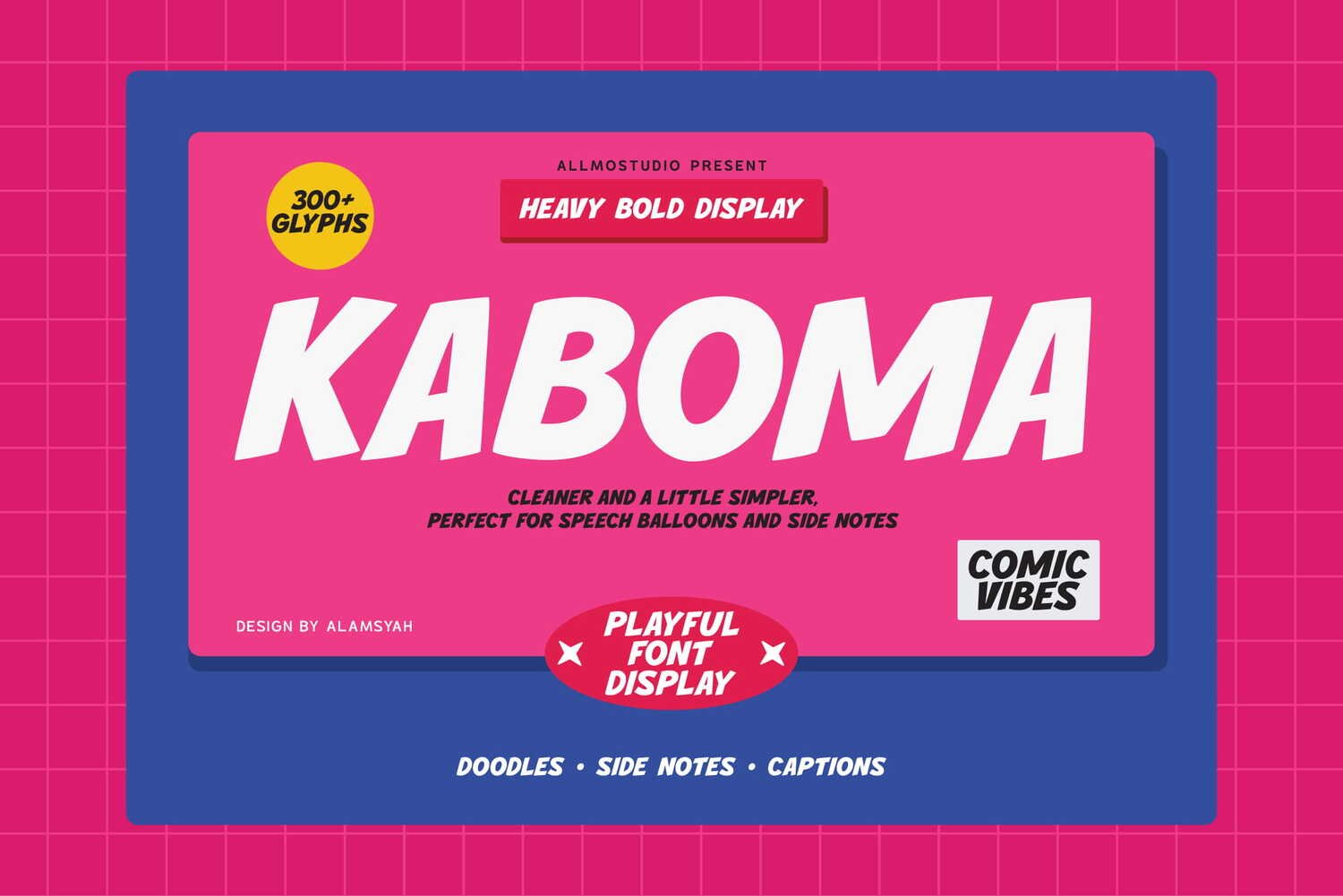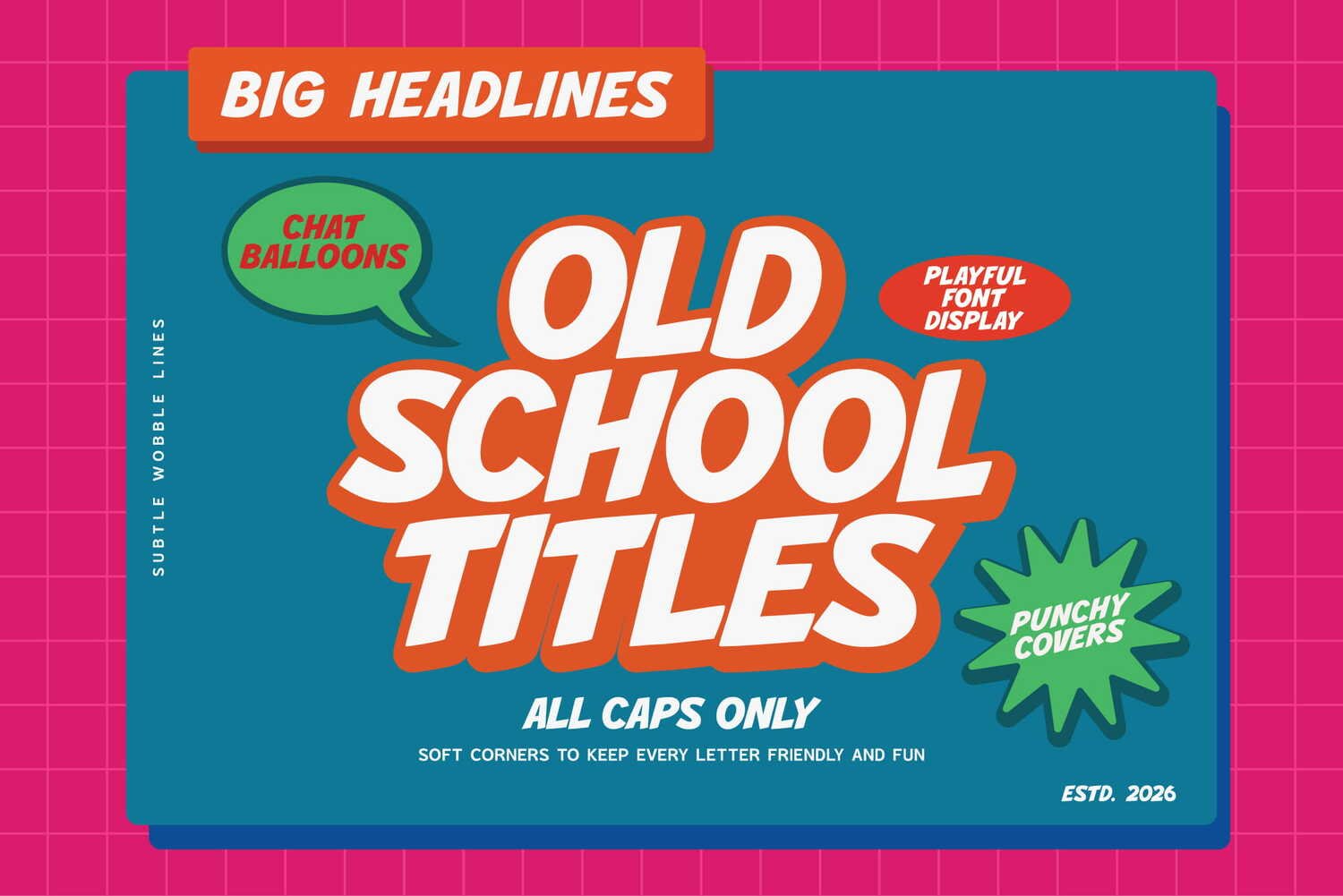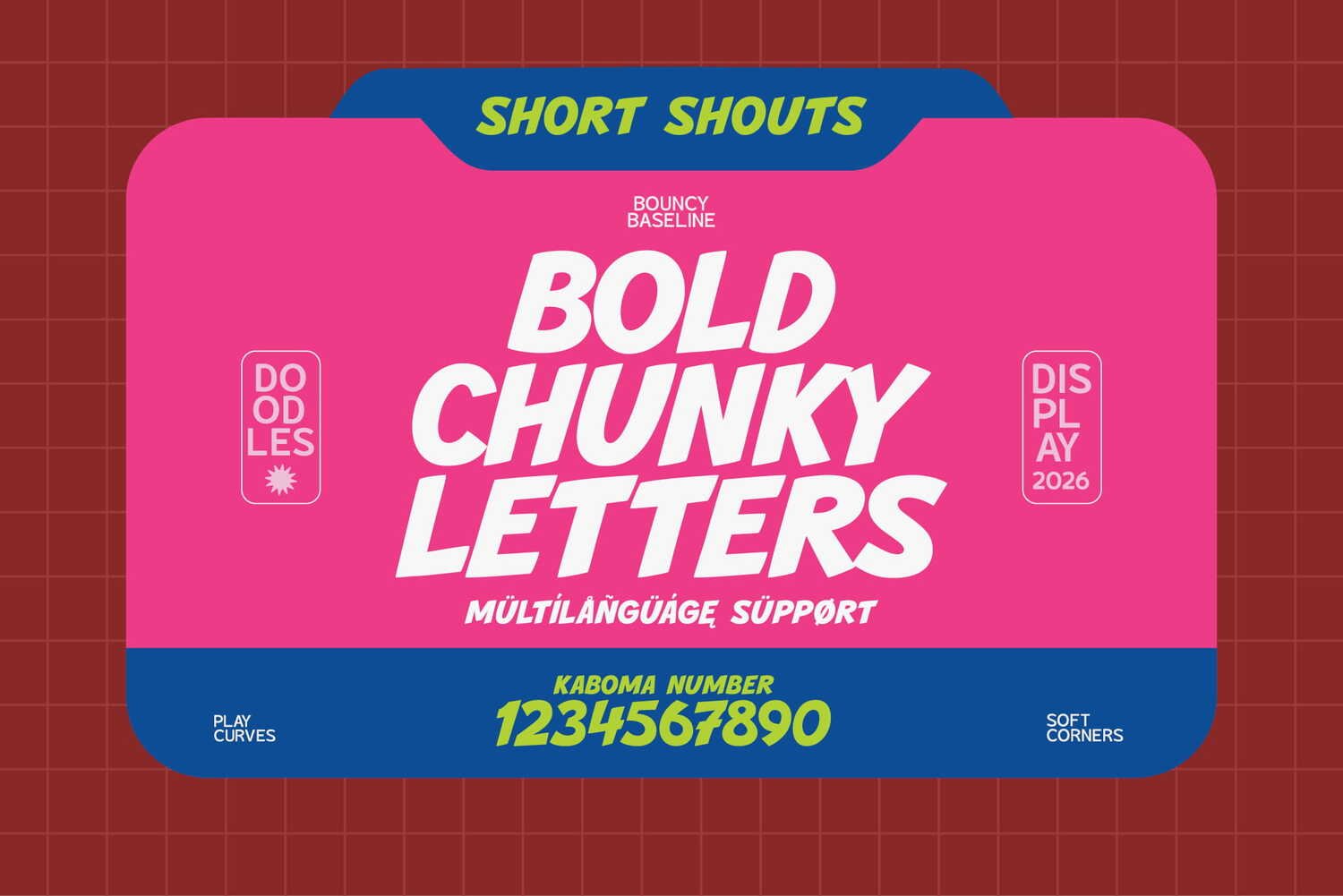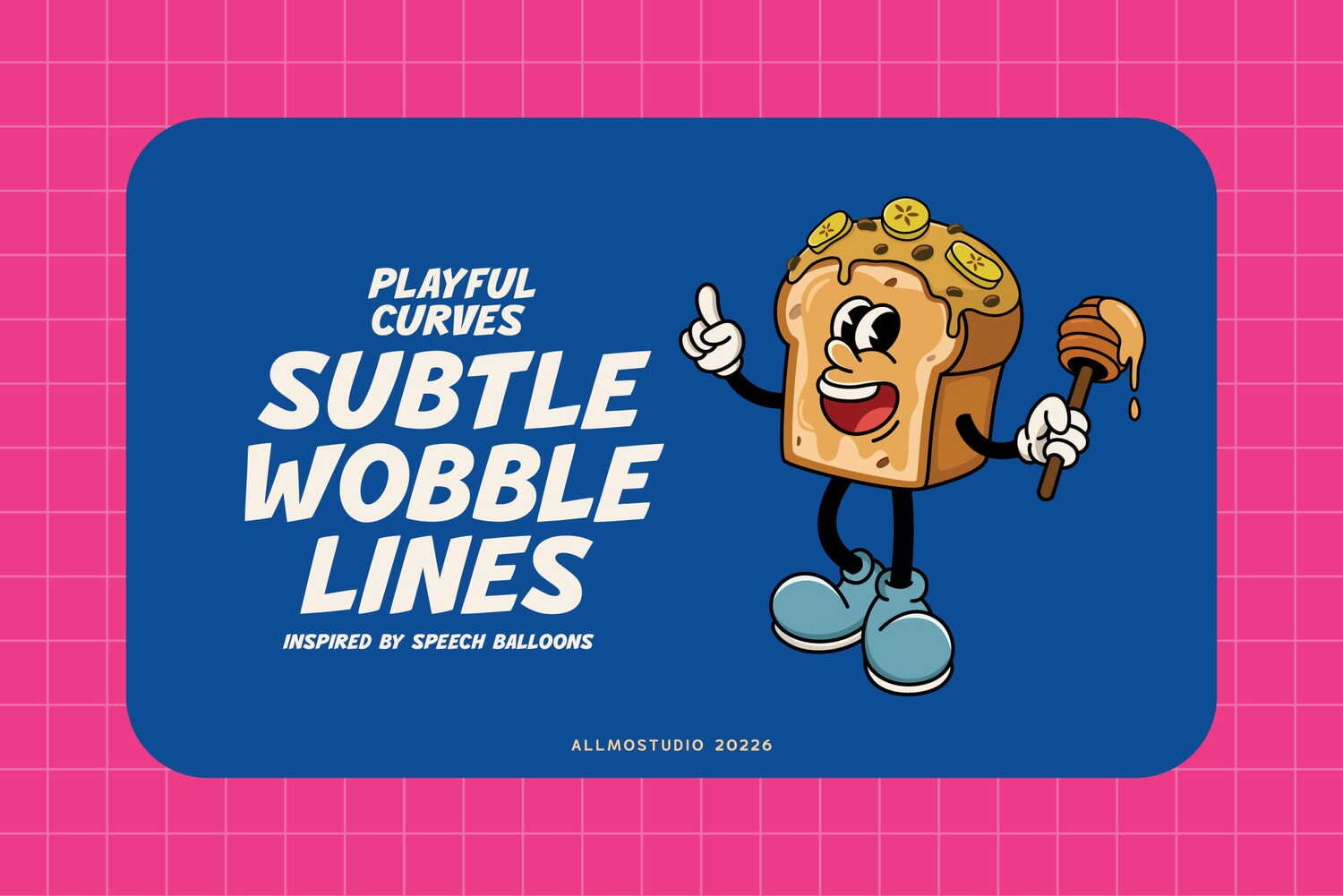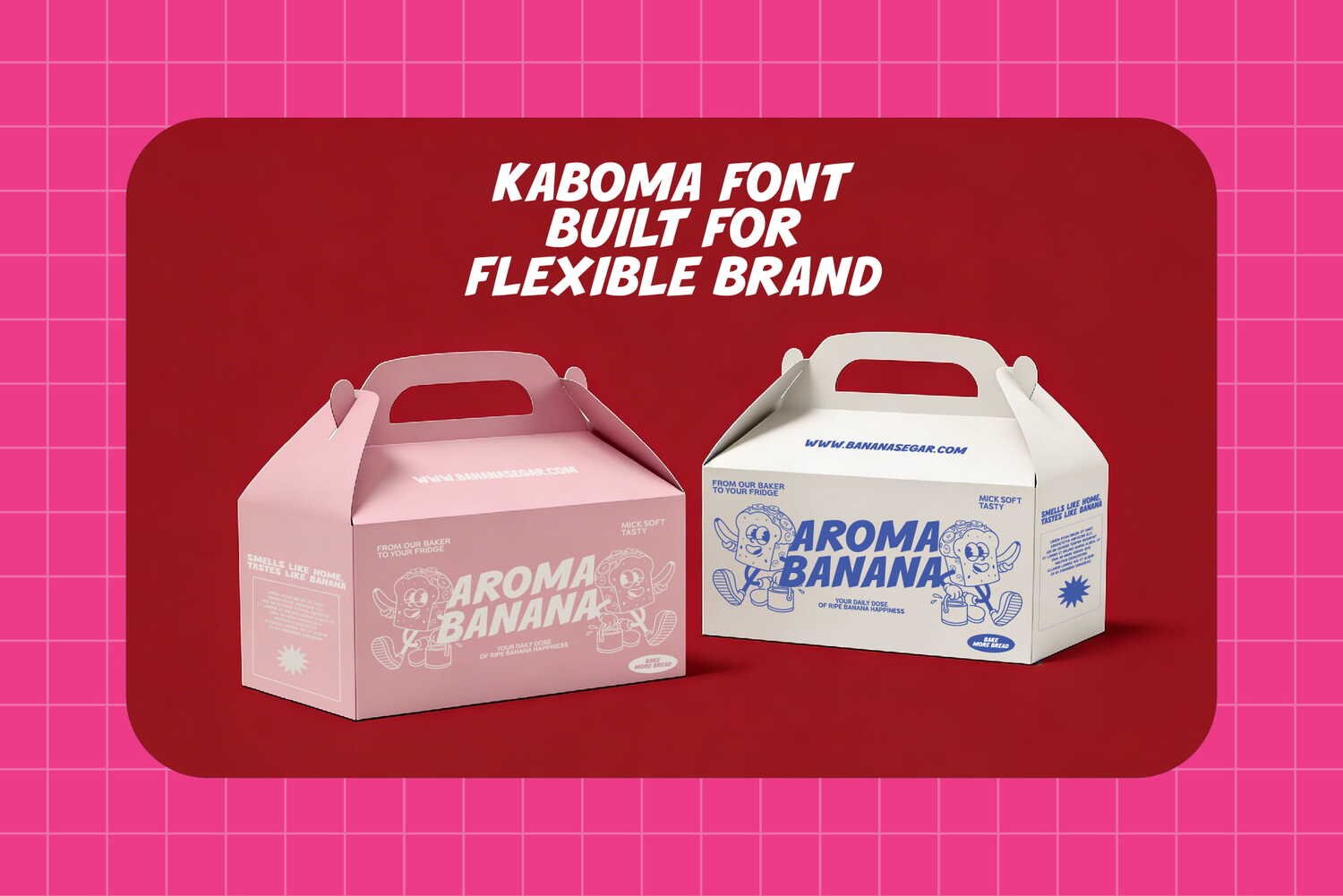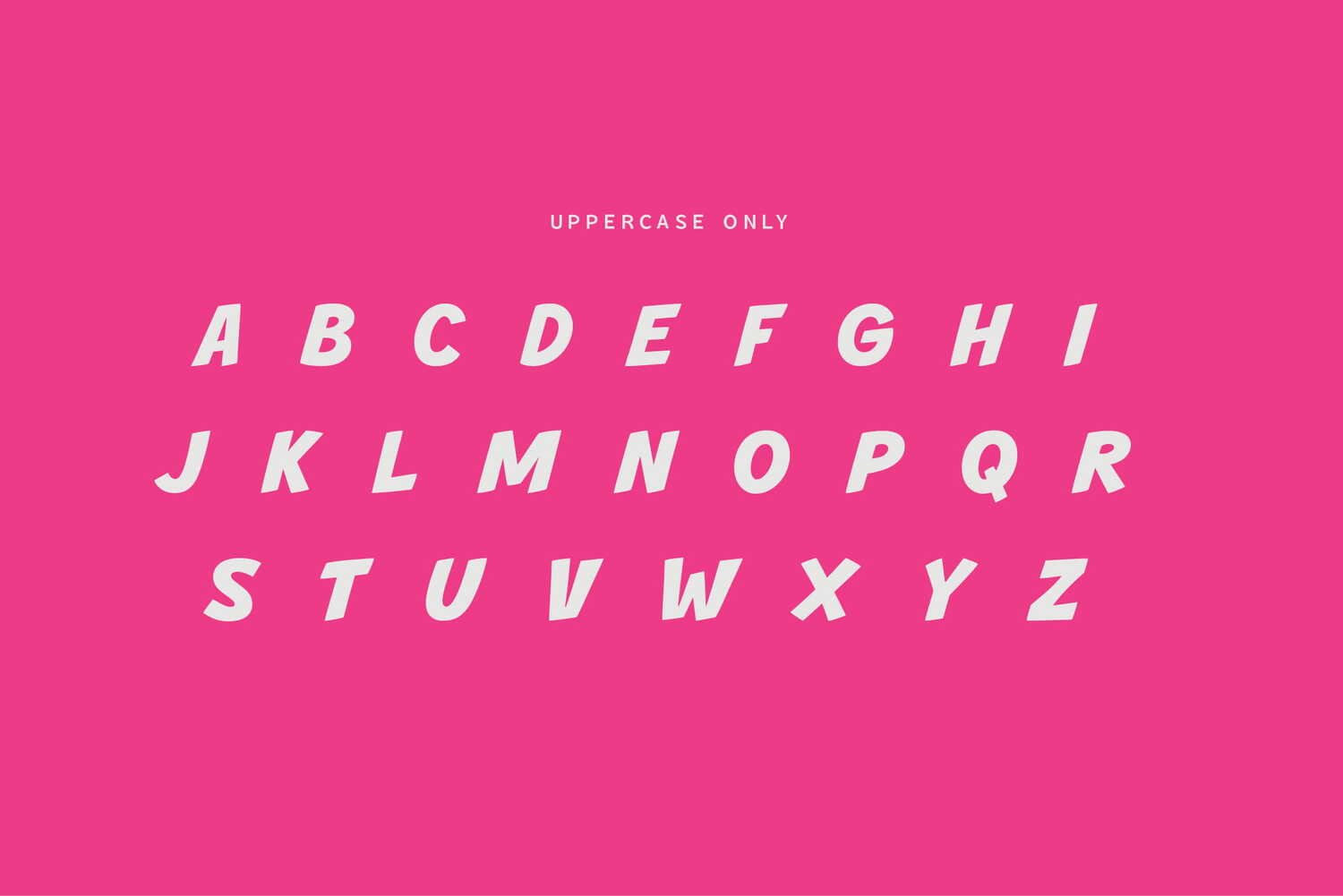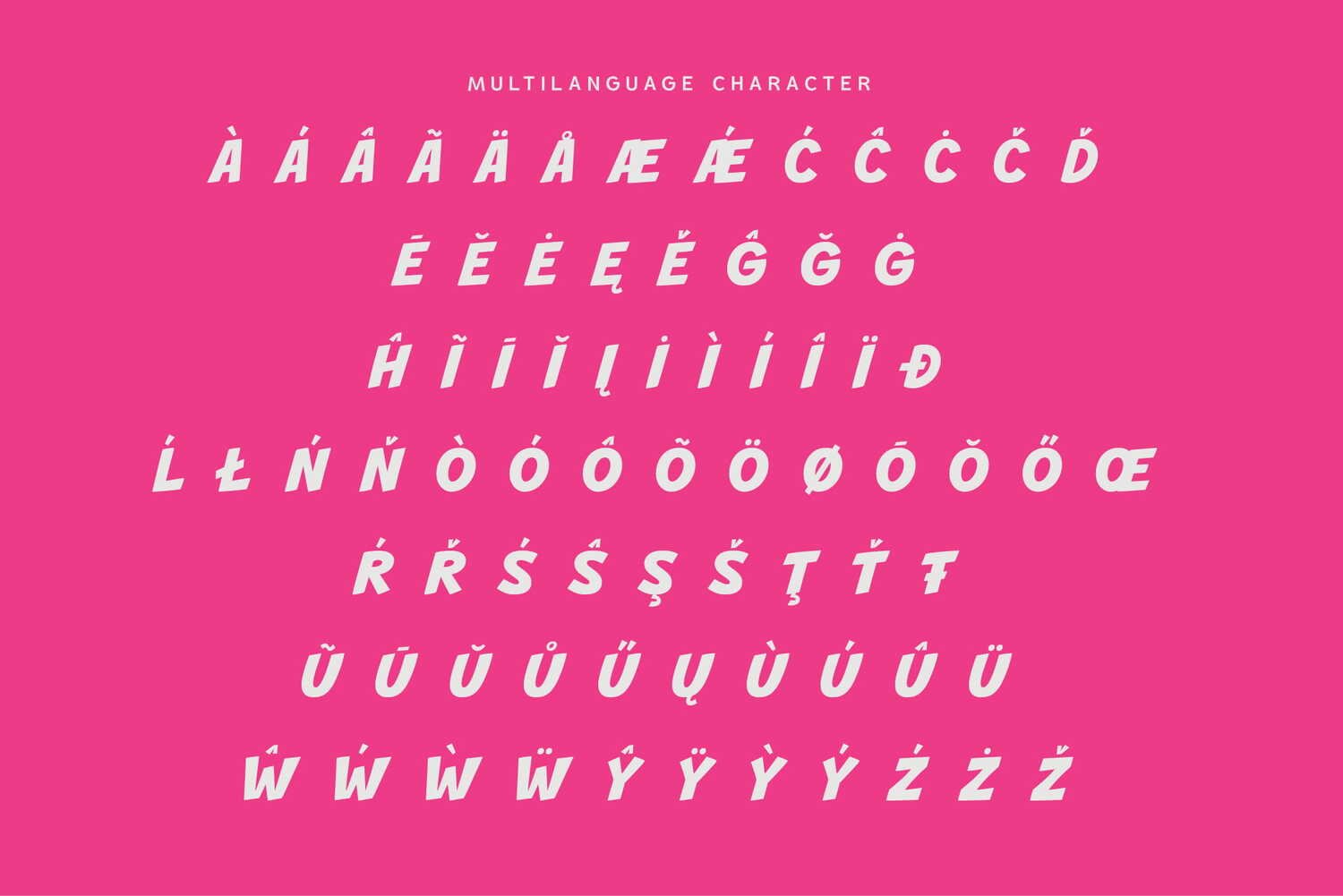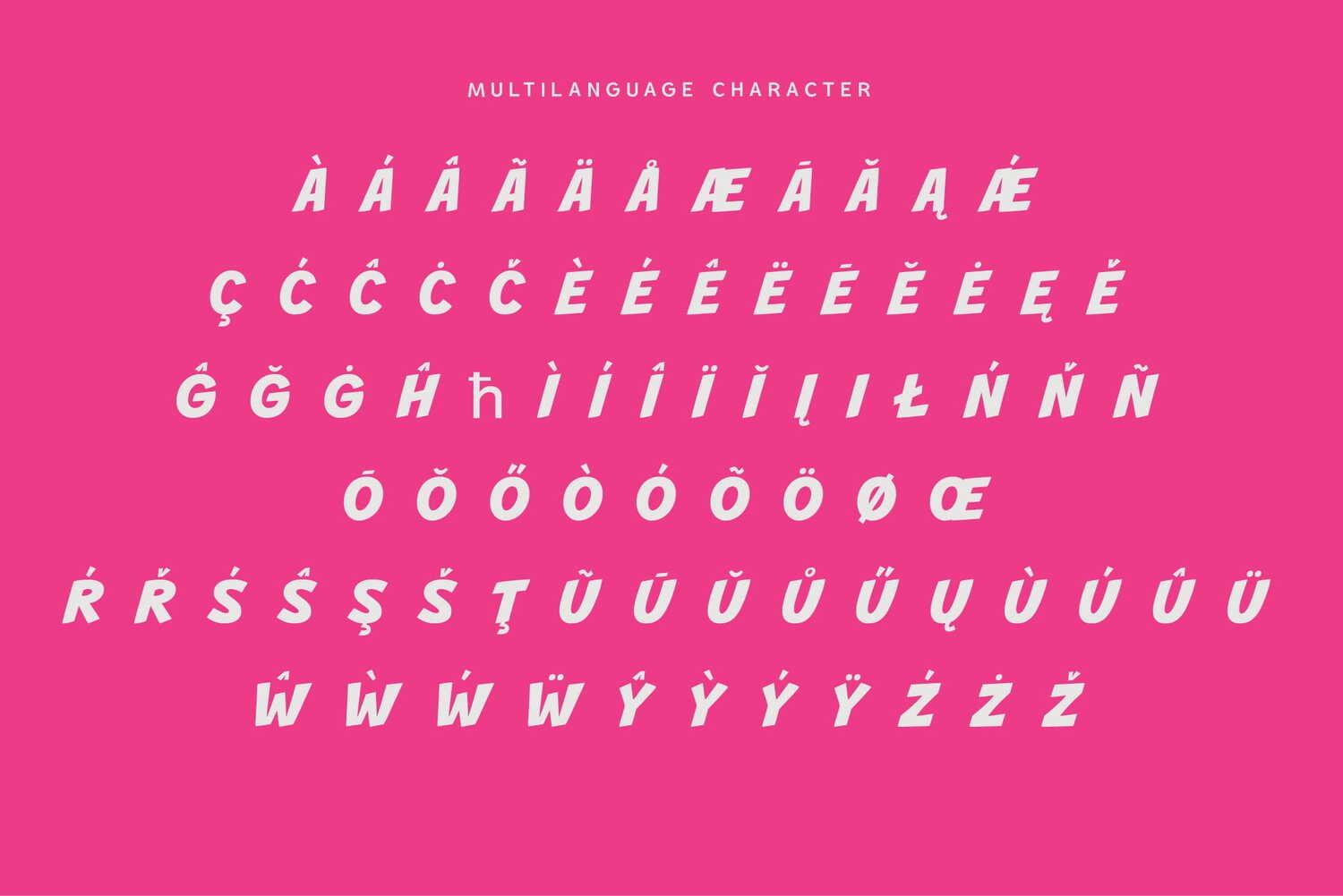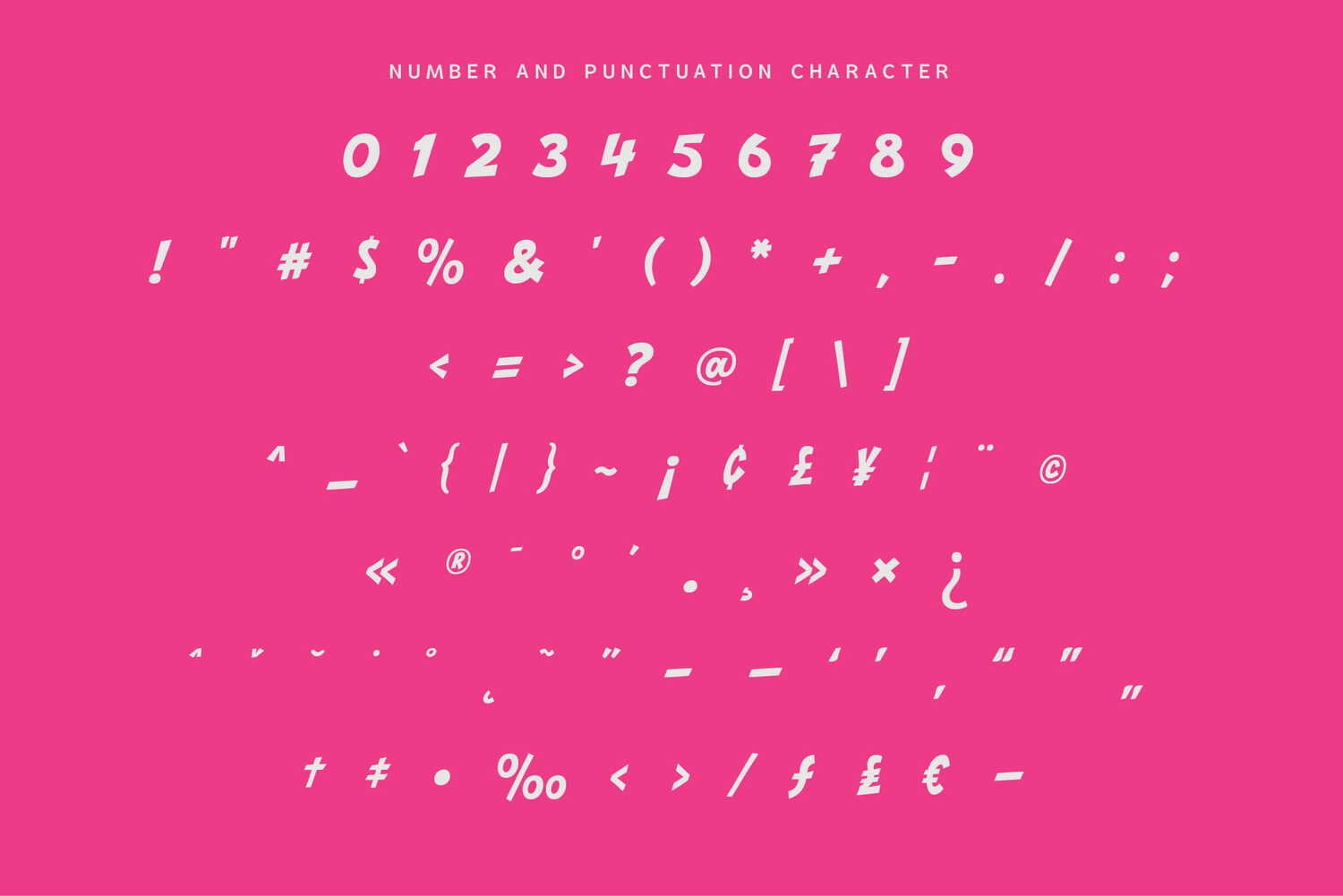
**KABOMA is a heavy bold display font defined by its cleaner, simpler forms and playful comic bounce, crafted to deliver a loud, friendly, and energetic look. It’s the perfect choice for speech balloons, side notes, doodles, captions, comic books, posters, stickers, and kids’ branding that demand bold impact with personality.**
**Its bold, well-spaced characters are designed to stay clear and punchy at any size, making it an essential typeface for creatives seeking a blend of comic vibes and modern versatility.**